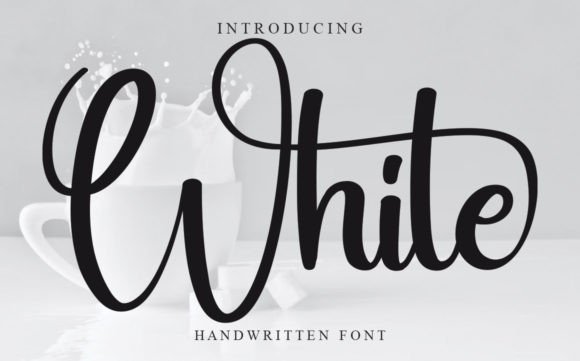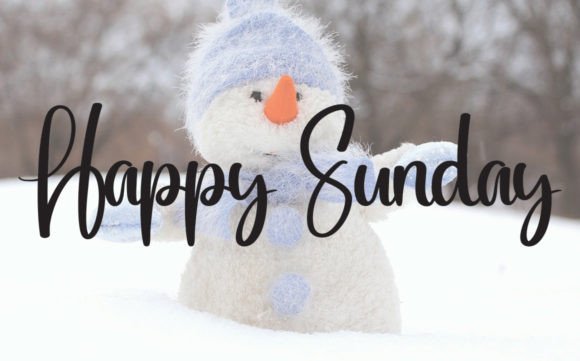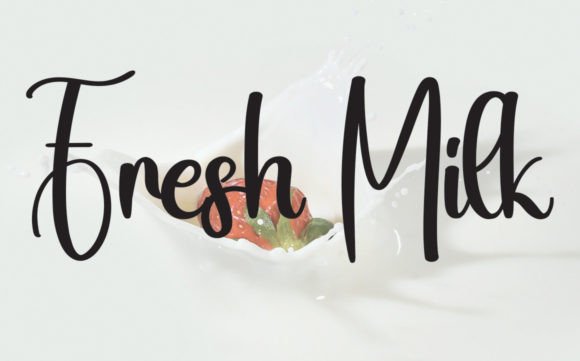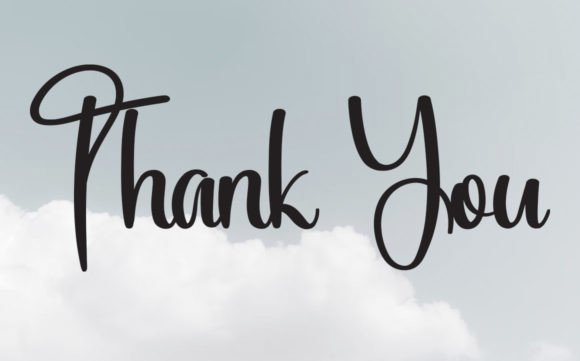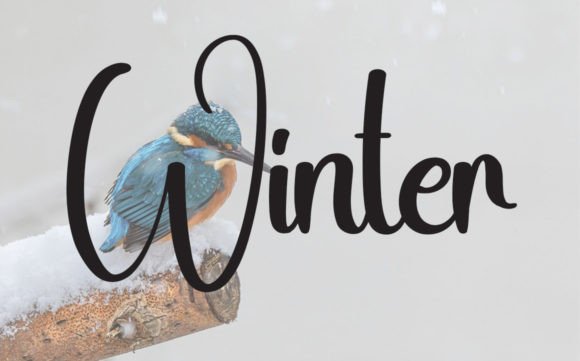
White Font
About White Font Download
The White Font Download is a sweet and delicate handwritten script that adds elegance and warmth to your creative projects. With dainty strokes and joyful handwritten energy, this font is perfect for both personal and professional use. Whether you are working on wedding invitations, cards, or branding designs, White provides a romantic handwritten style that makes your creations shine.
A Handwritten Script with Romantic Charm
The White script font blends graceful handwritten details with a balanced, modern look. As a result, it feels timeless, stylish, and versatile. Furthermore, it adapts seamlessly from stationery to digital projects, making it a reliable choice for hobbyists and professional designers alike.
Handwritten fonts always bring intimacy and personality to designs. The White Font is ideal for wedding invitations, birthday notes, thank you cards, and festive greetings. Because of its elegant handwritten strokes, every card looks polished and heartfelt. In addition, it ensures that your stationery projects leave a lasting impression.
Branding and Logo Design with White Font
Typography helps set the tone of a brand. The White handwritten font works beautifully for boutique logos, product packaging, and promotional campaigns. Its romantic yet professional handwritten style communicates creativity and elegance. Therefore, it is especially effective for lifestyle, fashion, and wedding-related industries.
Posters, Titles, and Editorial Designs
The White Font Download also excels in posters, book covers, banners, and magazines. It stays highly legible at all sizes while adding handwritten sophistication. Consequently, it is a dependable option for designers who want creativity mixed with clarity.
In today’s online space, fonts must work across multiple platforms. The White typeface integrates seamlessly into Instagram graphics, Pinterest boards, YouTube thumbnails, and blogs. Because of its dainty handwritten flow, it ensures digital projects look modern, romantic, and engaging.
Why Designers Choose White Typeface
Designers enjoy fonts that balance usability with artistry. The White handwritten script maintains its romantic charm while remaining legible and flexible. This makes it suitable for professionals as well as hobbyists. Moreover, its timeless elegance ensures it stays relevant for years to come.
Add Romantic Elegance to Your Projects Today